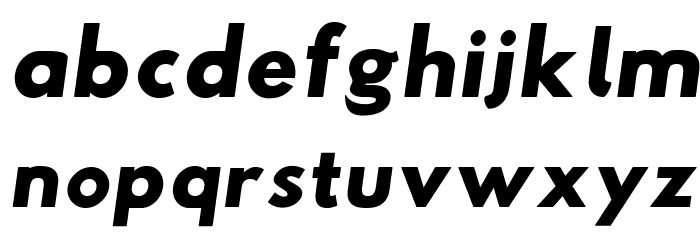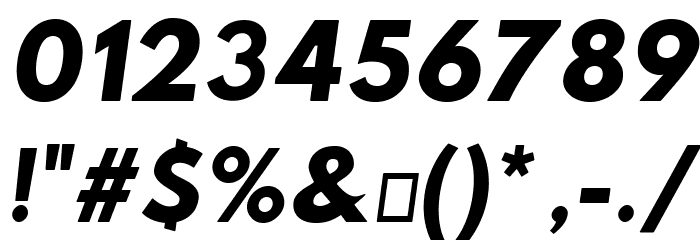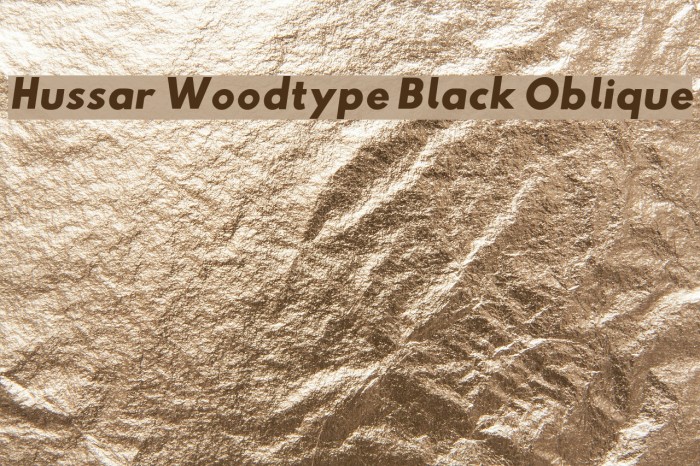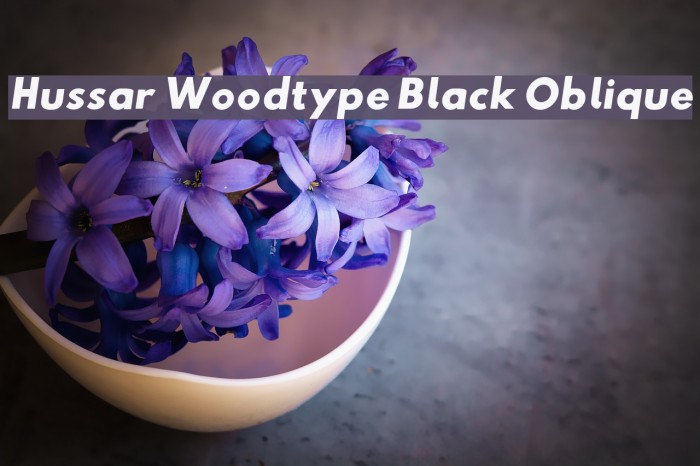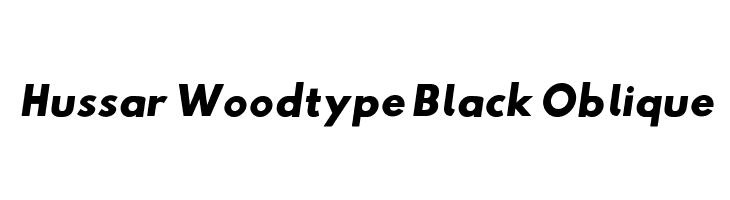
Hussar Woodtype Black Oblique Font
This font features a bold and oblique style, characterized by its thick strokes and slanted orientation. The uppercase and lowercase letters maintain a consistent weight, giving the font a strong and assertive presence. The numerals are equally bold, ensuring readability and impact. Special characters are designed with the same boldness, making them stand out effectively. The overall design is modern and dynamic, suitable for projects that require a strong visual statement. The font's oblique nature adds a sense of movement and energy, making it ideal for attention-grabbing headlines and titles.
A bold, oblique font with thick strokes and a modern, dynamic style.
- Proposed Projects: Ideal for posters, headlines, branding, and advertising materials that require a strong visual impact.